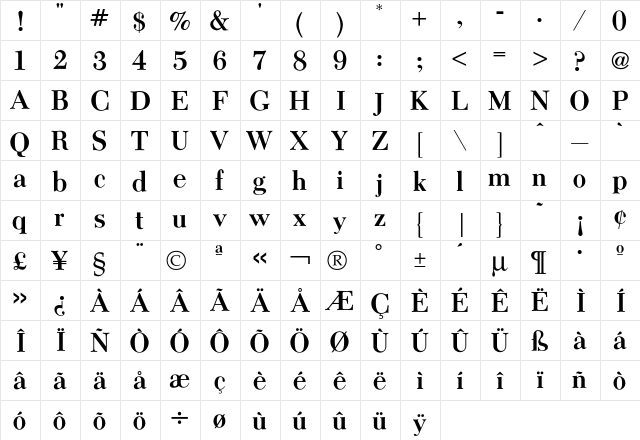
Camelia Bold
Design Context for Camelia Typeface
Camelia is a composed and adaptable typeface that performs quietly and consistently across a wide range of design contexts. Its bold stroke weight gives it real presence on the page.
Pro Tip: Pair Camelia with a font of contrasting weight or personality to build a more expressive typographic hierarchy.